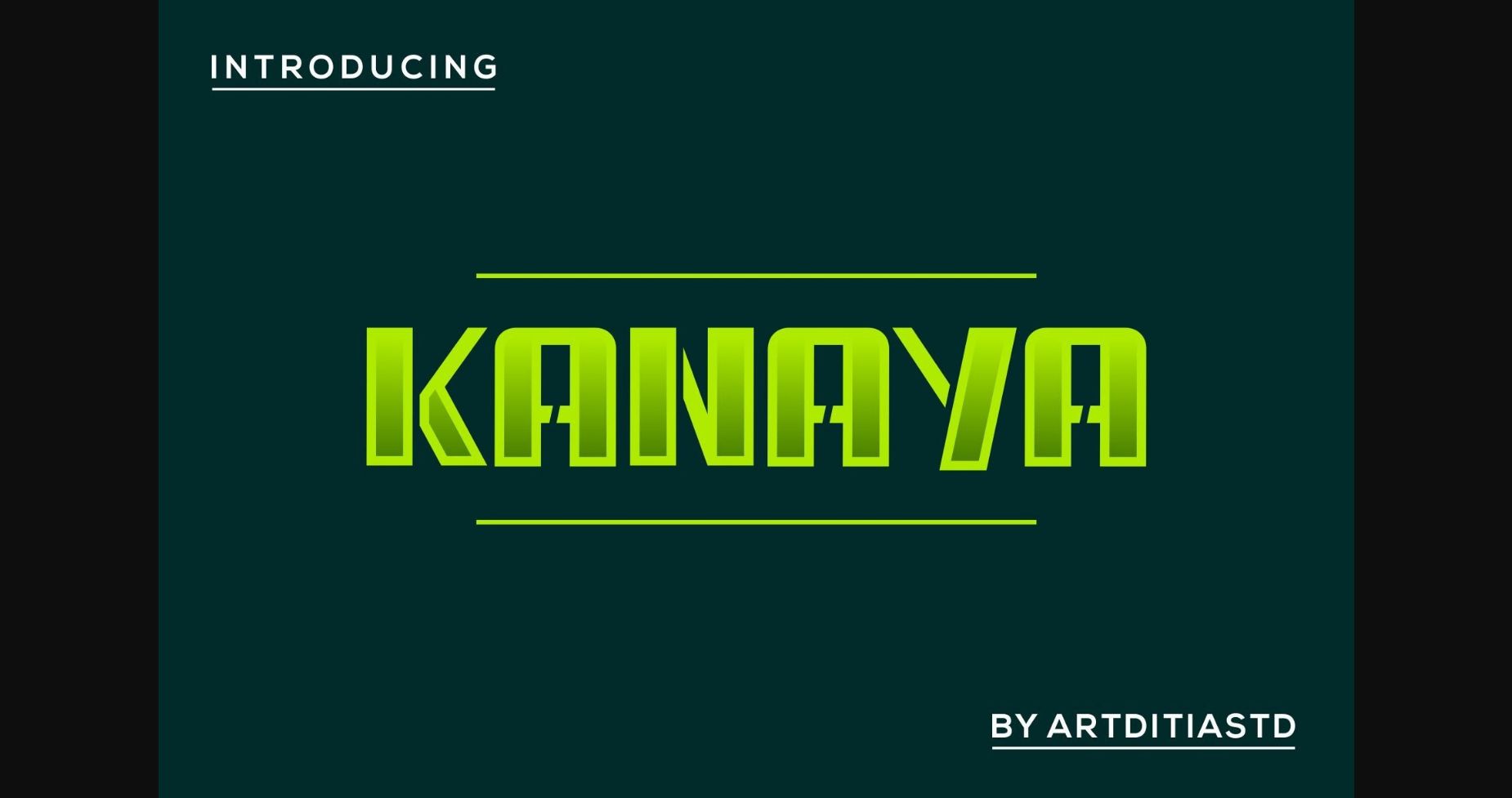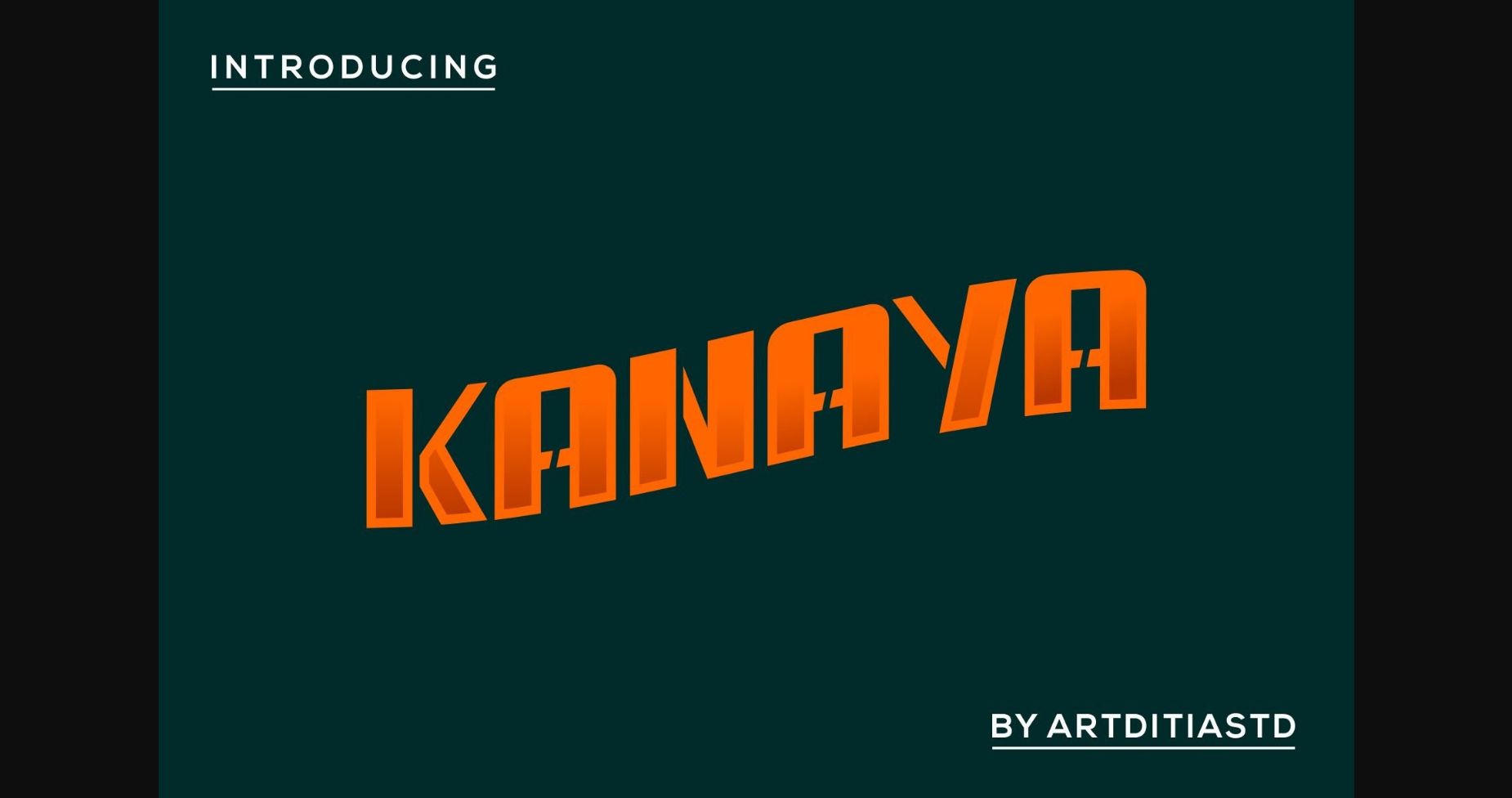
Kanaya is a bold and authentic sans serif font suitable for any branding project like logo, t-shirt printing, export, and many more. It looks modern and outstanding in a wide range of contexts.